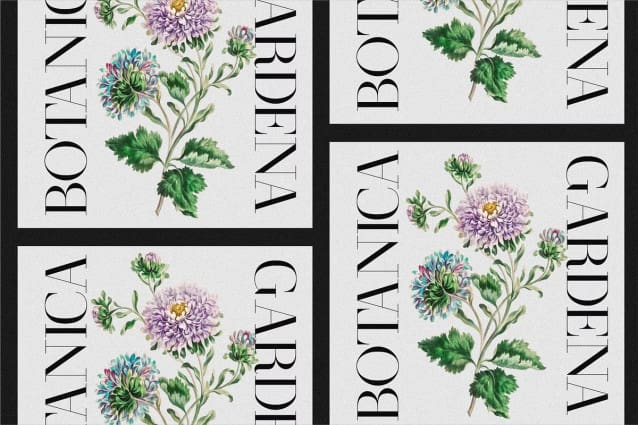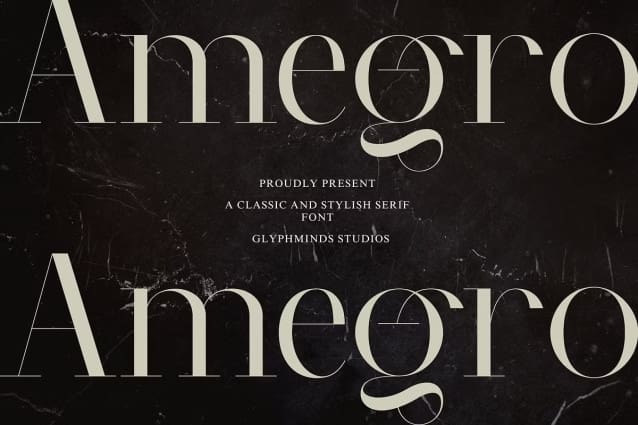
Amegro Font
Amegro Font, a classic serif font meticulously crafted to bring sophistication and style to your design projects. Inspired by the timeless charm of traditional typography, Amegro seamlessly blends classical elements with modern sensibilities, resulting in a font that exudes refined elegance and timeless appeal.
Elegance Redefined: With its gracefully sculpted letterforms and delicate serifs, Amegro embodies the essence of timeless beauty. Each character is meticulously crafted to strike the perfect balance between tradition and innovation, resulting in a font that effortlessly captures attention and leaves a lasting impression.
Unleash Creativity: Whether you’re designing branding materials, editorial layouts, invitations, or web content, Amegro offers unparalleled versatility and adaptability. Its timeless aesthetic lends a touch of sophistication to any project, while its refined details elevate your designs to new heights of elegance and style.
Distinctive Character: Amegro isn’t just a font—it’s a statement. Its distinctive character and subtle nuances set it apart from the ordinary, infusing your designs with personality and flair. With Amegro Font, you can create captivating visuals that command attention and inspire admiration.
Experience the Beauty of Amegro: Step into a world of timeless beauty and refined elegance with Amegro Font. Whether you’re a seasoned designer or a creative enthusiast, Amegro invites you to explore the endless possibilities of classic typography reimagined for the modern age.